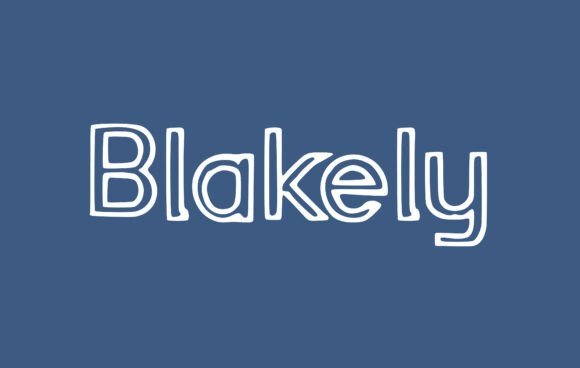
Introduction to Blakely Font
Blakely is a soft, outlined sans-serif with a friendly and modern look.
Its clean, rounded forms and subtle line work give it a fun, youthful personalityβ€”great for educational tools, classroom decor, kids’ apparel, and branding that calls for clarity with a cute twist .